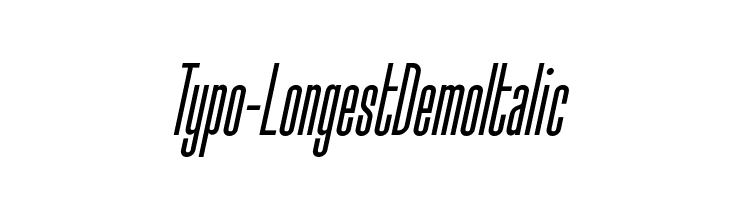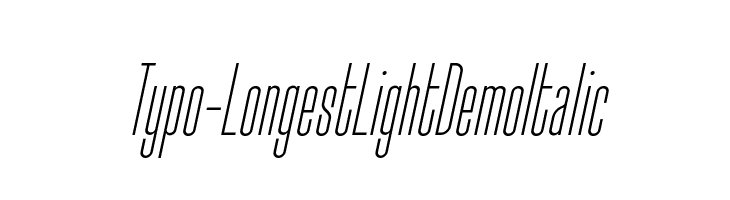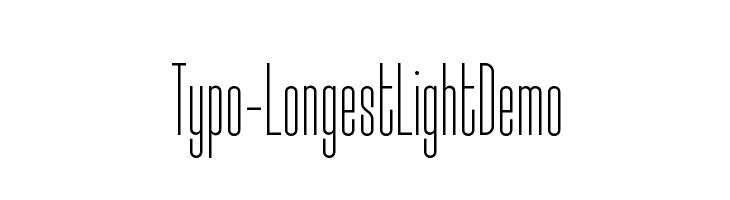
A tall, narrow font with elongated letterforms and a modern, elegant style.
A bold, elongated font with a modern, condensed style.
A bold, italicized font with a sleek, modern look and medium contrast.
A sleek, italic font with elongated, narrow characters and a modern style.
A tall, slender, and modern font with thin strokes and a cohesive design.